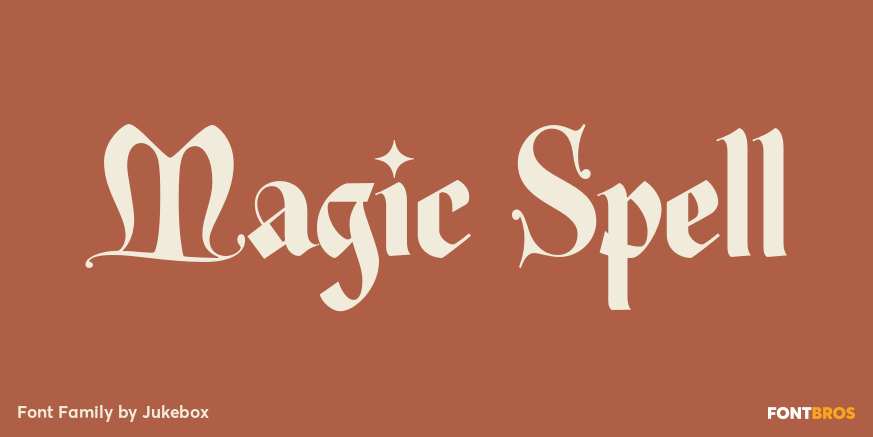
Magic Spell
About Magic Spell
Magic Spell is a mystical, fun font based on a handlettered alphabet in an old 1930s book on lettering. It captures that old world feel of magical wizards and fairy tales. Conjur up some fantastic designs with this bewitching font! Jukebox fonts are…